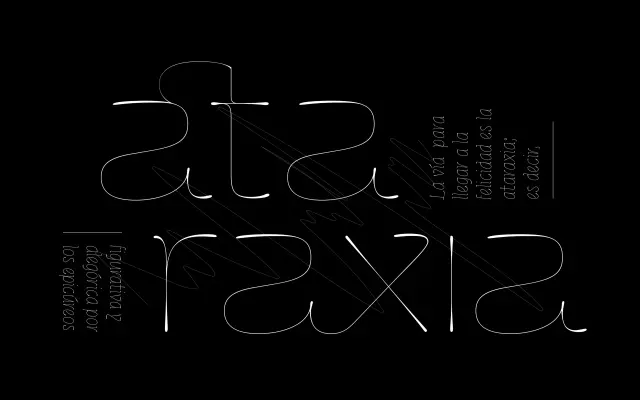
Cerulya CF
A semi-serif display typeface with rounded teardrop terminals, swashes and an extensive set of alternates and ligatures, built for large-scale use.
Spanning six weights from Thin to Heavy with matching italics, Cerulya CF sits between a serif and a script in character, its rounded teardrop terminals and flowing stroke contrast giving it movement without fully committing to either category. The family ships with discretionary ligatures, swashes and numerous stylistic sets, making it well-suited to branding, poster work and editorial headlines where typographic detail rewards scrutiny. Latin and Vietnamese are covered across a broad range of European languages.
Cerulya is explicitly a display typeface with a semi-serif construction, featuring rounded teardrop terminals, swashes and decorative alternates that place it firmly in the display category rather than conventional serif or sans-serif.